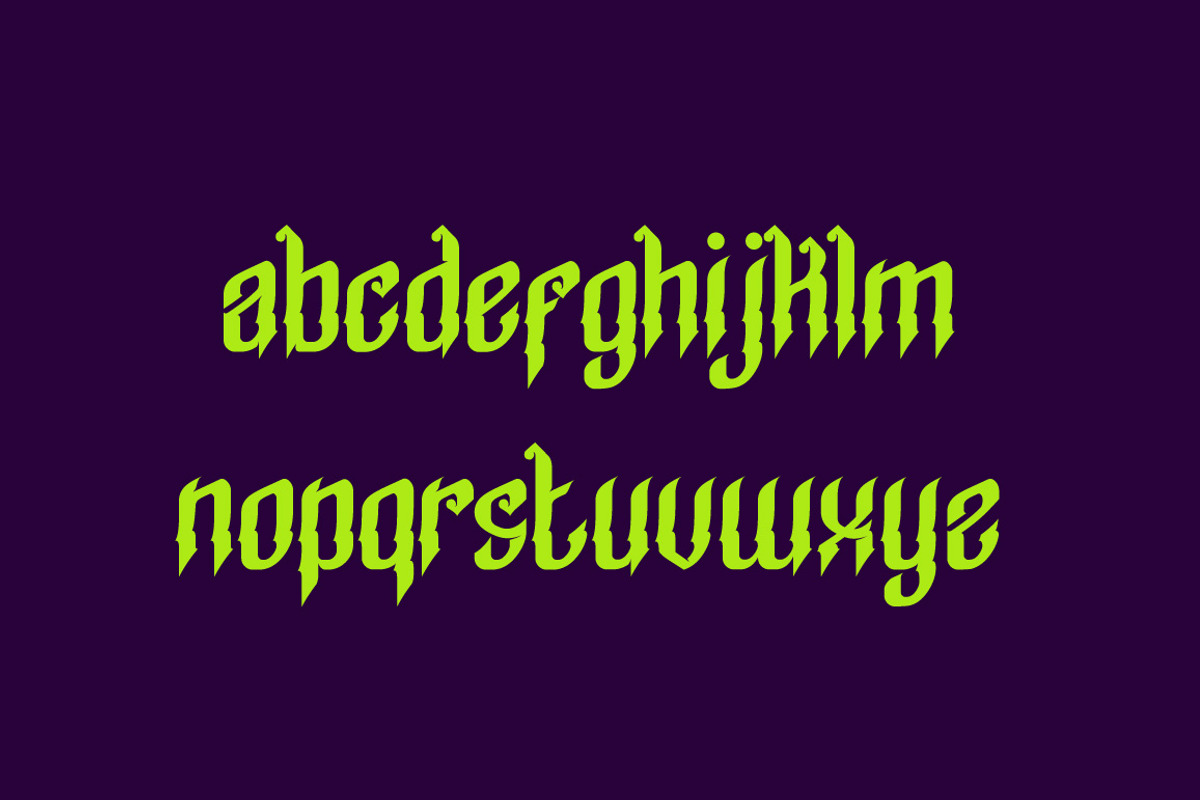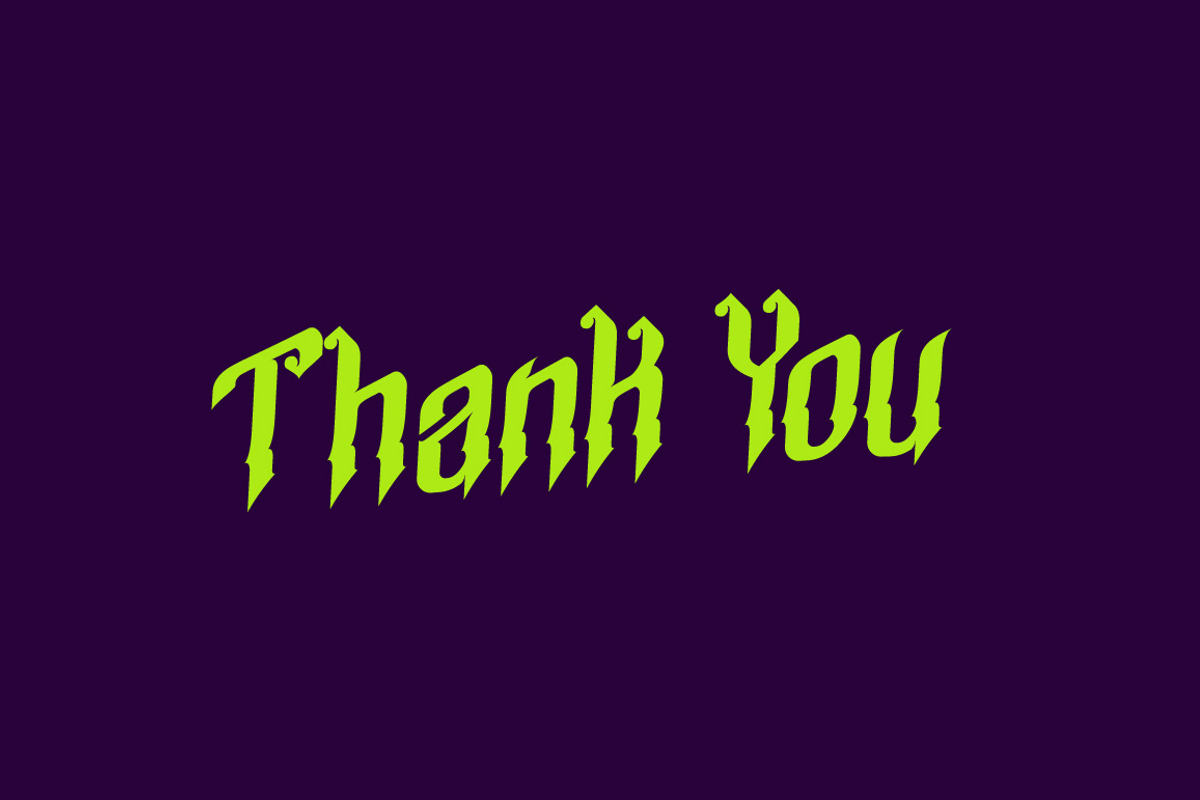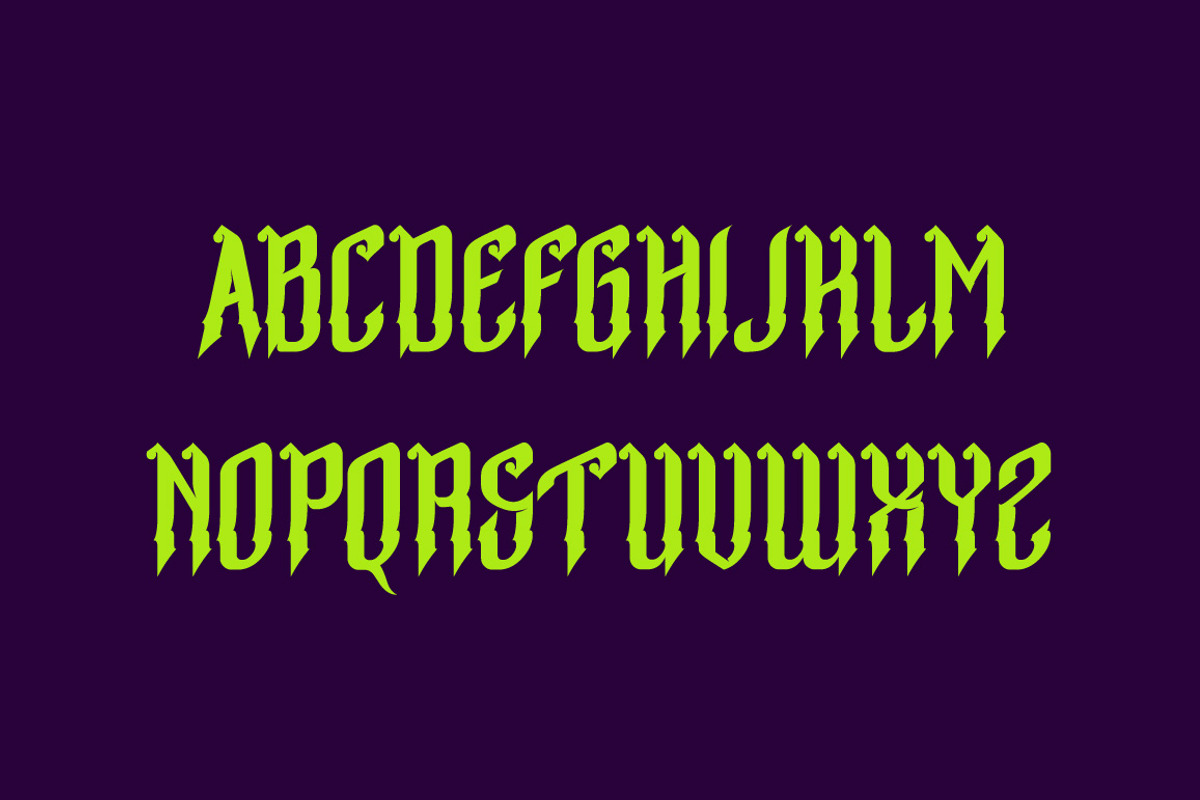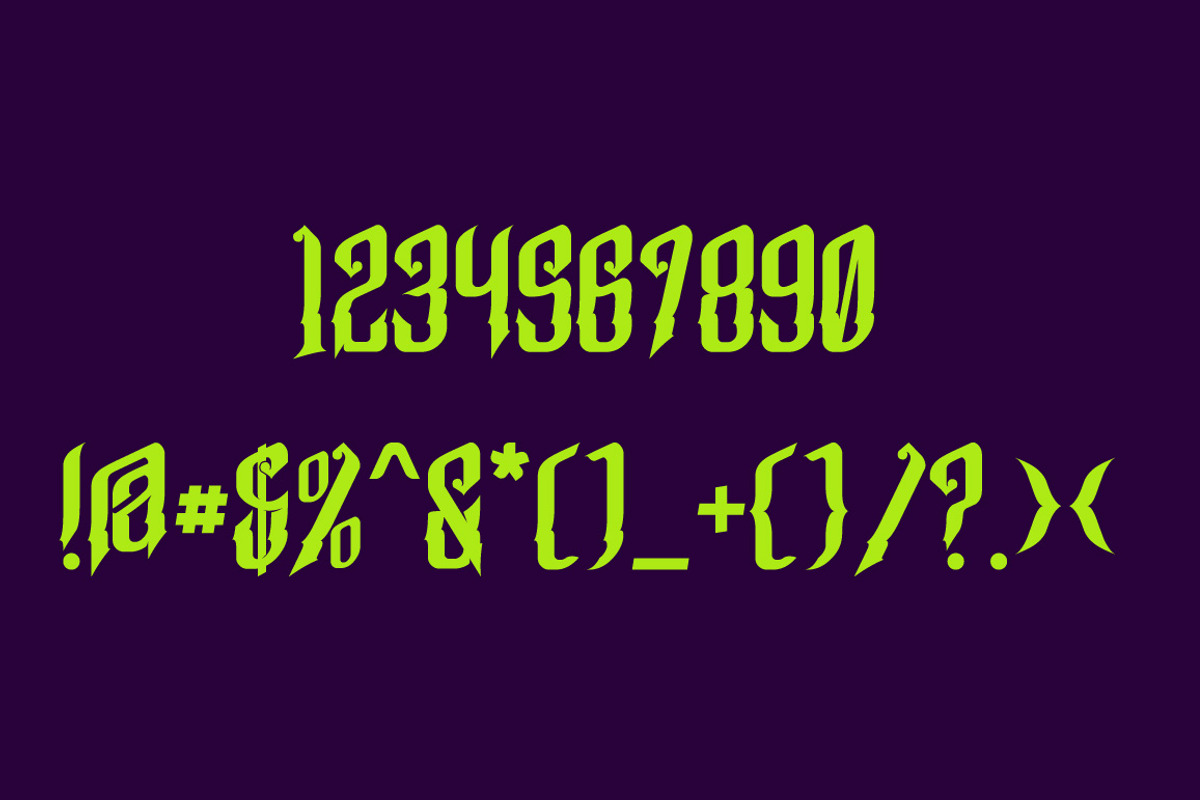
Parang Typeface
Parang Typeface by ghozai studio is a font selected for branding, posters, packaging, typography.
Why Parang Typeface is worth a look
Parang Typeface by ghozai studio fits naturally into Branding, posters, packaging, typography.